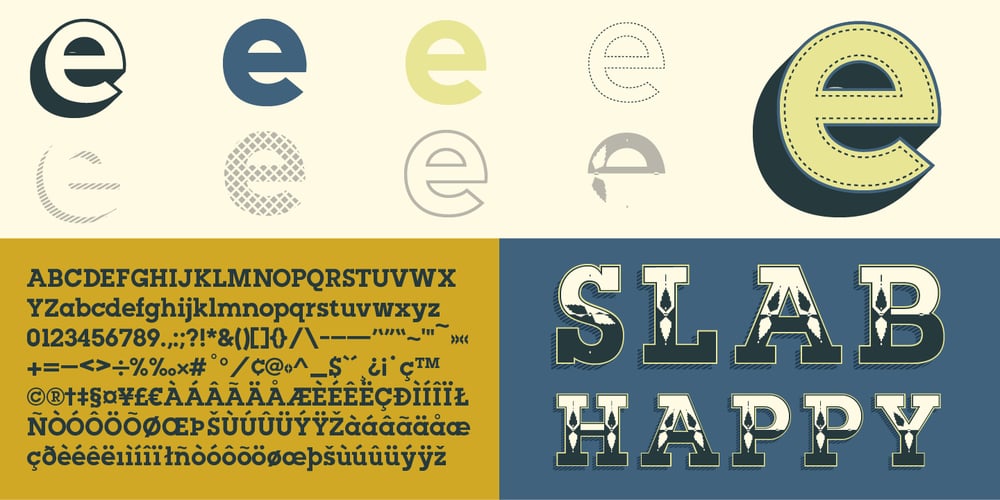
Slab Happy Font Family was designed by Will Ryan and published by Will Ryan. Slab Happy contains 8 styles and family package options. Slab Happy is a layered typographic system that adds a unique twist to neutral slab serifs. By pasting layers on top of one another and altering fonts and colors, you can create infinite combinations of slabby brilliance. Slab Happy looks best when set in display sizes, but functions just as well at smaller point sizes.